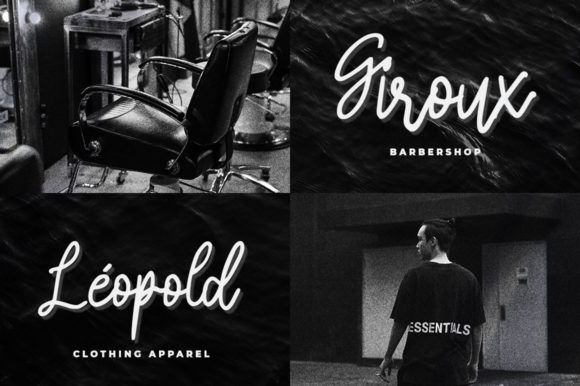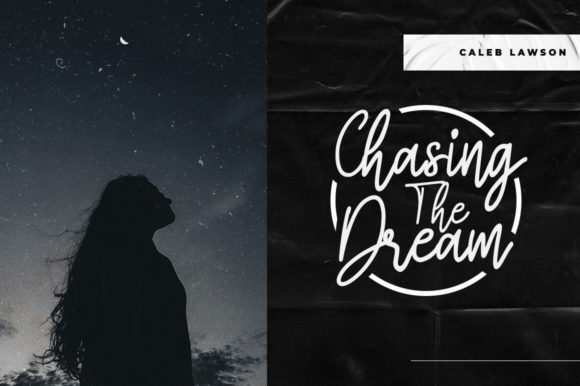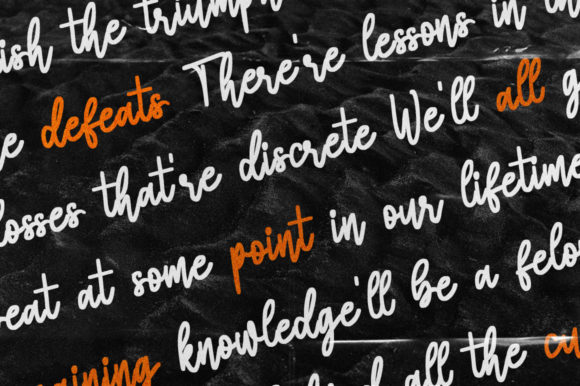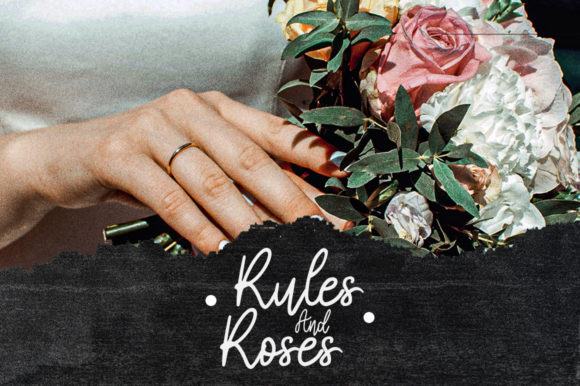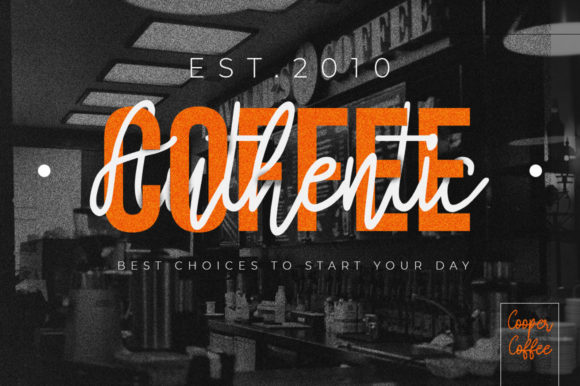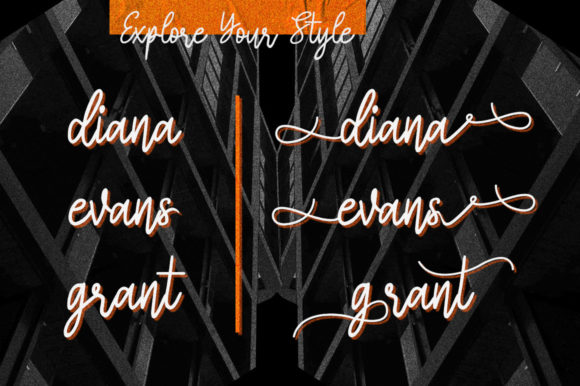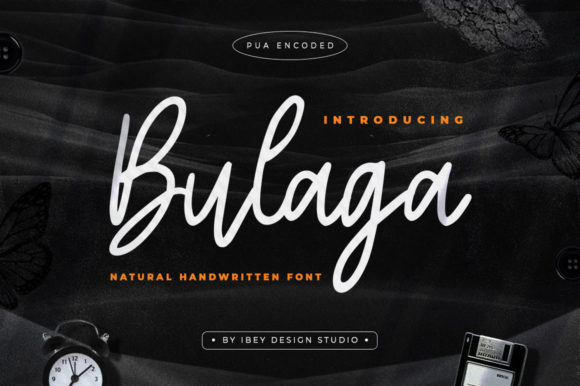
The Bulaga Font: A Stylish and Delicate Script Font for Your Design Needs
Have you ever been in the middle of a design project, and suddenly, you just can’t seem to find the right font? I know I have. It was a few months ago when I was working on a branding project for a client who wanted a elegant and sophisticated look. I spent hours browsing through font libraries, but nothing seemed to fit the bill. That was until I stumbled upon the Bulaga font. ✨
In this article, we’ll dive into the world of Bulaga, a stylish and delicate script font that’s perfect for adding a touch of elegance to your designs. We’ll explore its features, how to use it, and some similar fonts you might like.
A Personal Review of Bulaga
What I Love About Bulaga
- ✨ Clean and smooth vibe: Bulaga has a thin and smooth quality that makes it perfect for designs that require a touch of sophistication.
- ✅ PUA encoded: This means you can access all the glyphs and swashes with ease, making it a breeze to customize your text.
- 🌈 Versatile: Bulaga can be used for a wide range of designs, from branding and packaging to wedding invitations and social media graphics.
While Bulaga is an amazing font, there are a few things to keep in mind: 🤔
- ⚠️ Limited use in body text: Due to its delicate nature, Bulaga might not be the best choice for long blocks of body text. It’s better suited for headings, titles, and short paragraphs.
The Backstory of Bulaga
The story of Bulaga begins with a designer who wanted to create a font that was both elegant and delicate. Inspired by the beauty of handwritten scripts, the designer carefully crafted Bulaga to be a versatile and stylish font that’s perfect for a wide range of designs. From the clean lines to the smooth curves, every detail of Bulaga was carefully considered to make it a standout font in any design.
A: PUA (Private Use Area) encoding is a way of encoding fonts that allows for the creation of custom glyphs and swashes. This means that you can access a wide range of characters and alternates in Bulaga, making it a highly customizable font.
Q: Is Bulaga suitable for body text?
A: While Bulaga is a beautiful font, it’s not recommended for long blocks of body text. Its delicate nature makes it better suited for headings, titles, and short paragraphs.